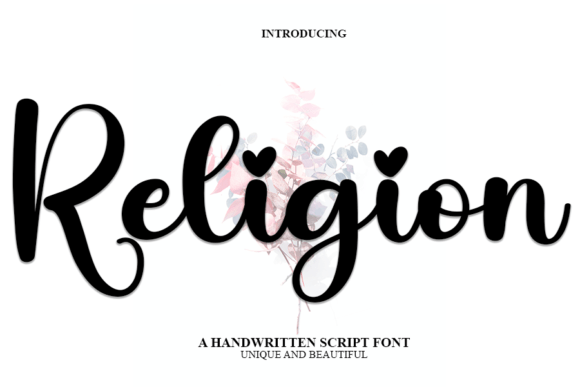
Prepare yourself for a typographic journey that's anything but ordinary, introducing Religion Font - the script font that's as captivating as it is haunting. A creation of ade studio, Religion Font is a meticulously crafted handwritten font, designed to cast a spell on your creative projects with its cool and extraordinary style.
Religion Font is not just a font; it's an incantation that brings your words to life. Its delicate strokes dance across the page, enchanting your audience with their graceful curves and intricate details. This font is a masterpiece of digital calligraphy, capturing the essence of the written word in a way that's both timeless and captivating.
With Religion Font, your designs will transcend the mundane and enter the realm of the extraordinary. Its enchanting appearance is perfect for letters, invitations, food products, titles, and any other project where you want to evoke a sense of mystery and intrigue. Imagine your words, adorned with the elegance of Religion Font, casting a spell on your audience, leaving them captivated by your message.
Religion Font is more than just a collection of characters; it's a gateway to a world where your creativity can run wild. Its versatile nature allows you to craft designs that are as unique and captivating as your imagination. Whether you're a seasoned designer or just starting your creative journey, Religion Font will elevate your projects to new heights, adding a touch of sophistication and intrigue that's sure to leave a lasting impression.
Don't let your designs be ordinary; embrace the extraordinary with Religion Font. Let its delicate strokes weave their magic, captivating your audience and leaving them spellbound by your creations. Join the legion of designers who have discovered the power of Religion Font and unleash your creativity like never before.